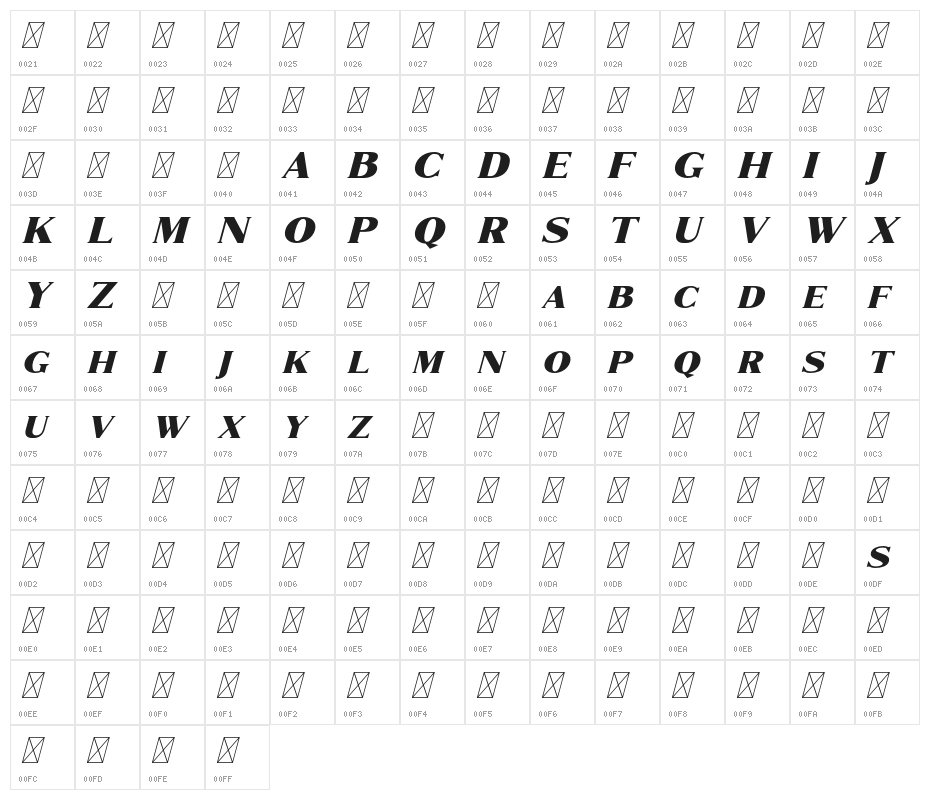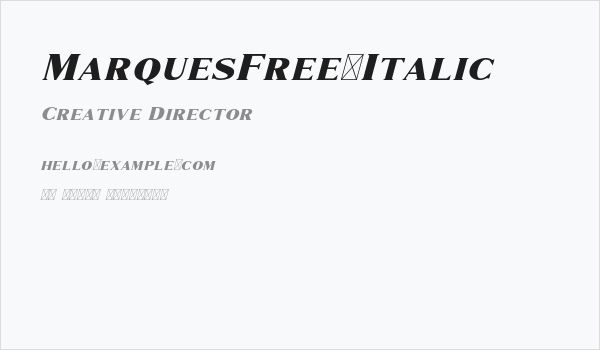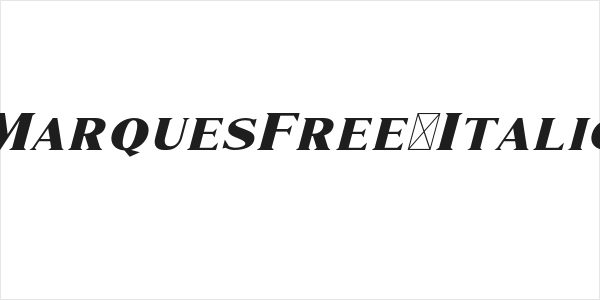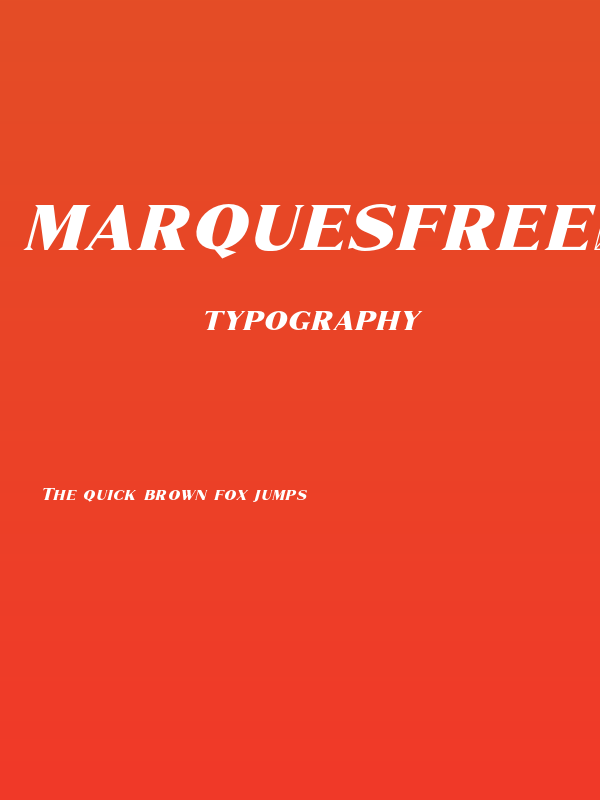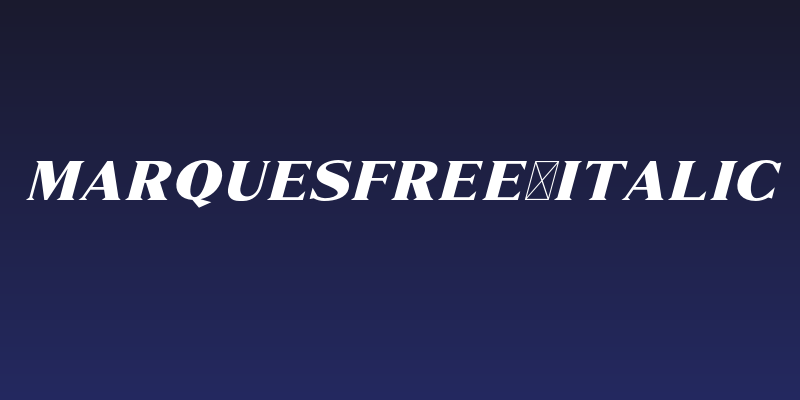
MarquesFree-Italic Font
MarquesFree-Italic Description
This font features a dynamic and elegant italic style, characterized by its slanted and flowing letterforms. The strokes are bold, providing a strong presence, while maintaining a sense of sophistication and grace. The uppercase letters exhibit a classic serif design, with sharp, angular serifs that add a touch of formality. The lowercase letters continue this theme, offering a harmonious blend of curves and angles. The font's overall appearance is both traditional and modern, making it versatile for various design applications. Its italic nature enhances the sense of movement and fluidity, making it suitable for projects that require a touch of elegance and dynamism.